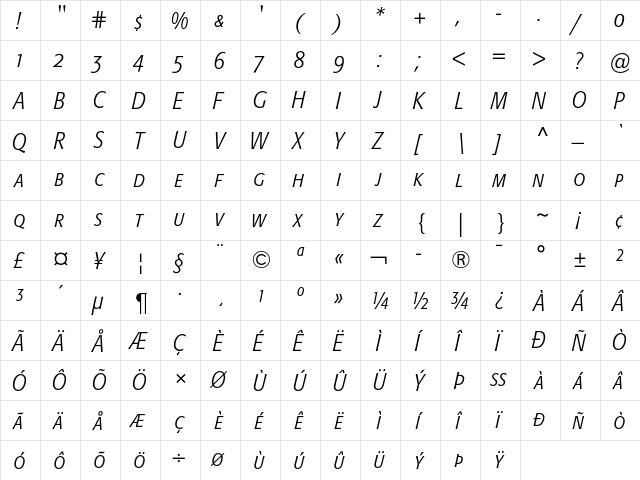
Formata Light Cond Italic SC
Design Context for Formata Typeface
Formata takes a measured approach to typography — its balanced proportions and neutral character make it a reliable workhorse for both digital and print work. Its italic angle brings a sense of urgency and motion to the letterforms. Its slender proportions lend an understated elegance to any composition. The condensed width makes it efficient for tight spaces without sacrificing legibility.
Pro Tip: Use Formata for emphasis, pull quotes, and subheadings where its slanted energy can add rhythm to the layout.